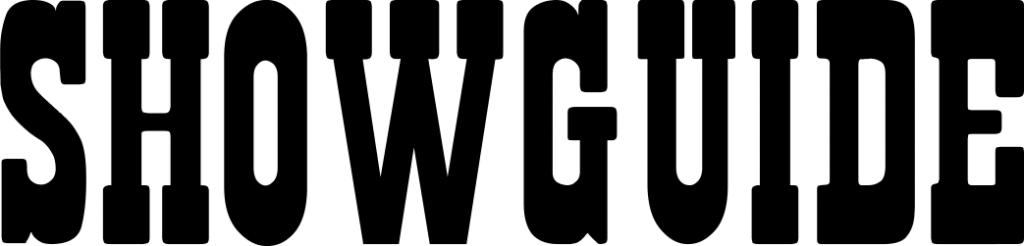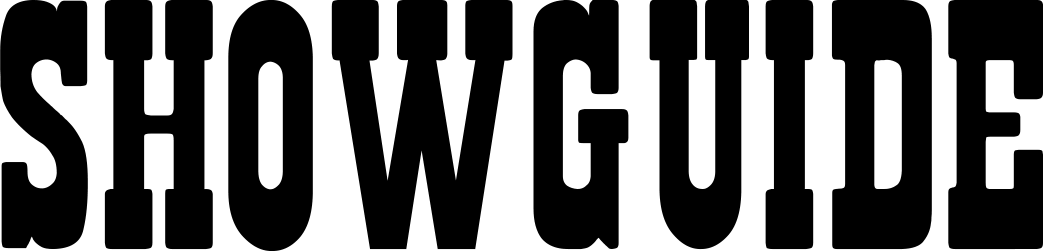
Showguide Font
Showguide font with long lines and Wild West evokes many themes and designs on the clothes of Mexican citizens. This Western font is the best choice for diners’ design having all the necessary characters, including upper…
Showguide font with long lines and Wild West evokes many themes and designs on the clothes of Mexican citizens. This Western font is the best choice for diners’ design having all the necessary characters, including uppercase and lowercase letters and numbers.
The size of the characters in this retro block font is such that if used in small sizes, the possibility of reducing its readability is high.
Showguide Font